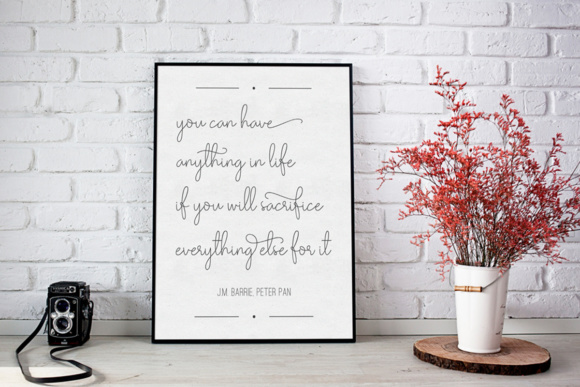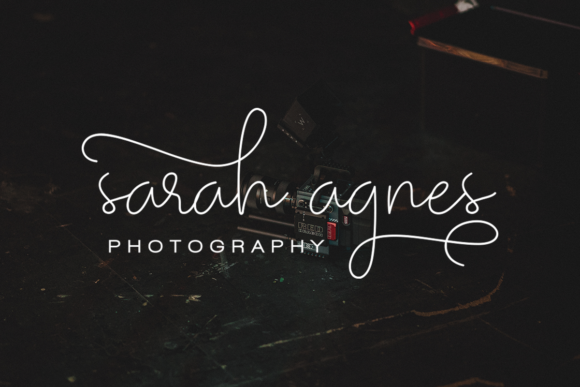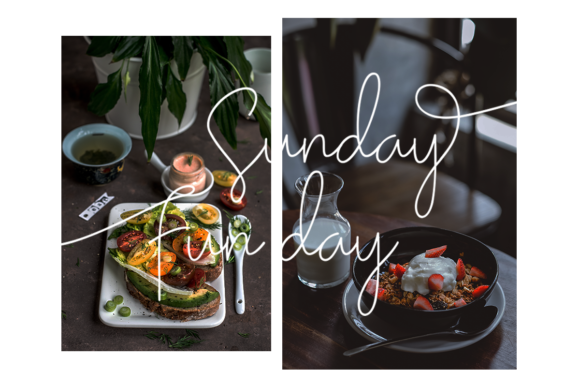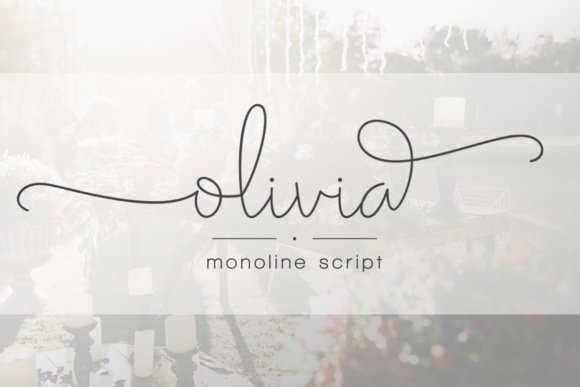
Introduction to Olivia Script Font
Olivia is a modern calligraphic font with a mono-line model and sophisticated flow.
Olivia is perfect for branding, logos, wedding invitations, diaries, cups, mugs and much more Olivia has a smooth texture, so it’s perfect for all kinds of printing techniques.
Key Features of Olivia Script Font
Why Choose Olivia Script Font?